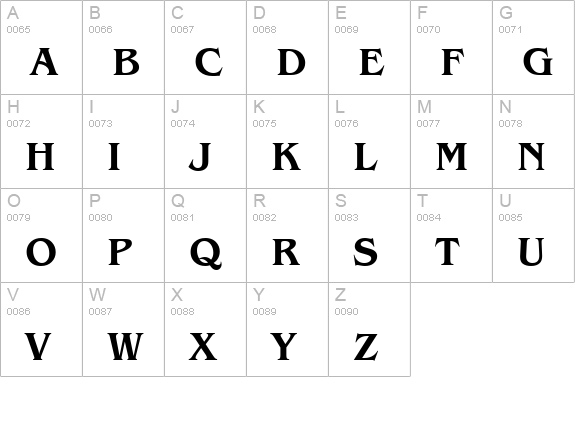
Benjamin-Medium Font Details
Benjamin-Medium is a balanced, medium-weight variant in the Benjamin typeface family \xE2\x80\x94 well suited to sub-headlines, navigation, and balanced editorial work.
The Benjamin-Medium font is a versatile and elegant typeface that exudes sophistication and modernity. Its clean lines and balanced letterforms make it perfect for a wide range of design projects, from branding to editorial design. The Benjamin-Medium font strikes the perfect balance between professionalism and creativity, making it a popular choice for designers looking to make a statement. One of the best things about the Benjamin-Medium font is that it is completely free to download. That's right, you can access this stylish font at no cost on FontsMarket.com. Whether you're a seasoned designer or just starting out, having access to high-quality fonts like Benjamin-Medium can take your projects to the next level. With its timeless appeal and versatility, the Benjamin-Medium font is sure to become a staple in your font library. Download it for free today and elevate your design projects with this sophisticated typeface.